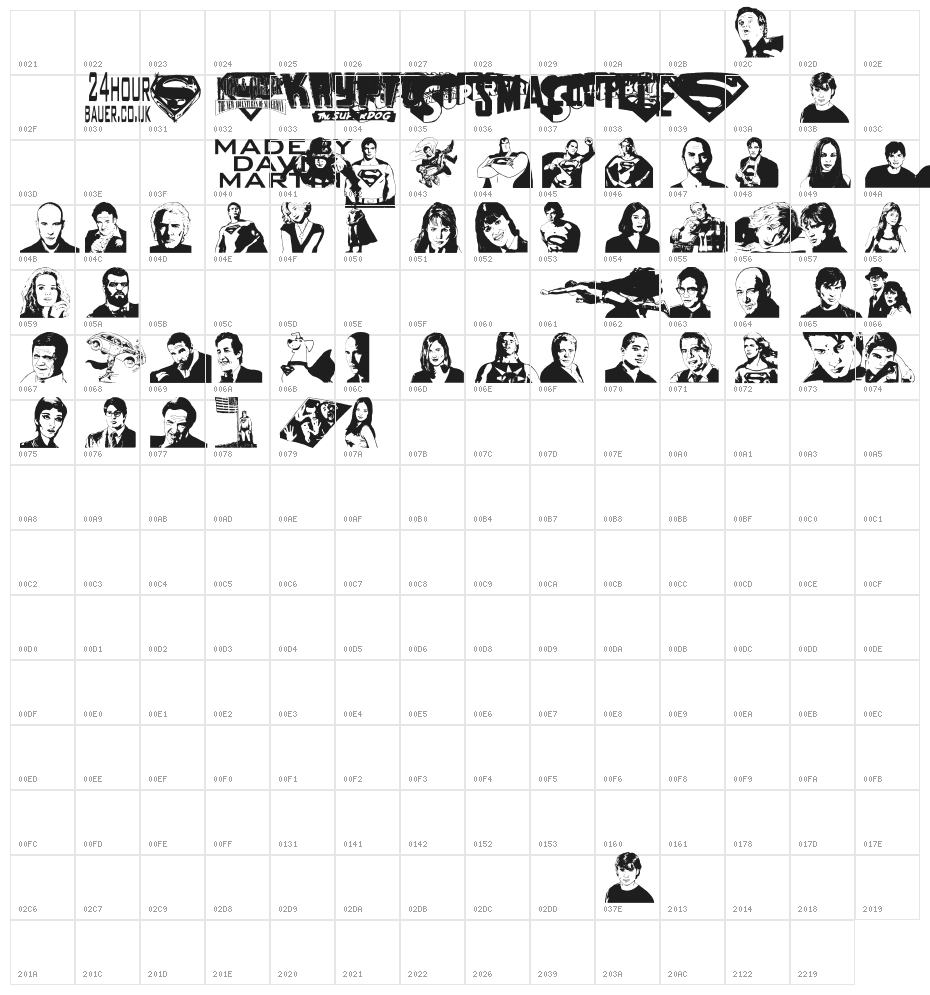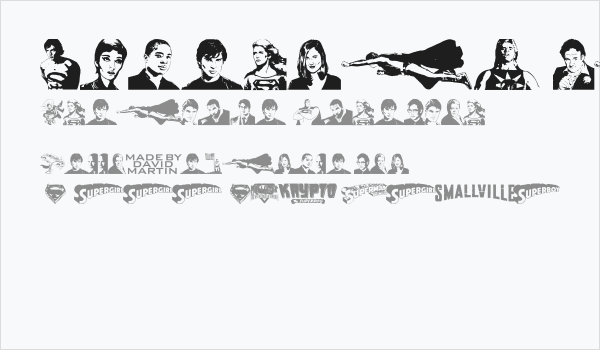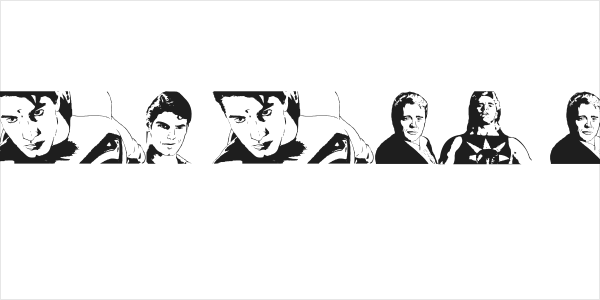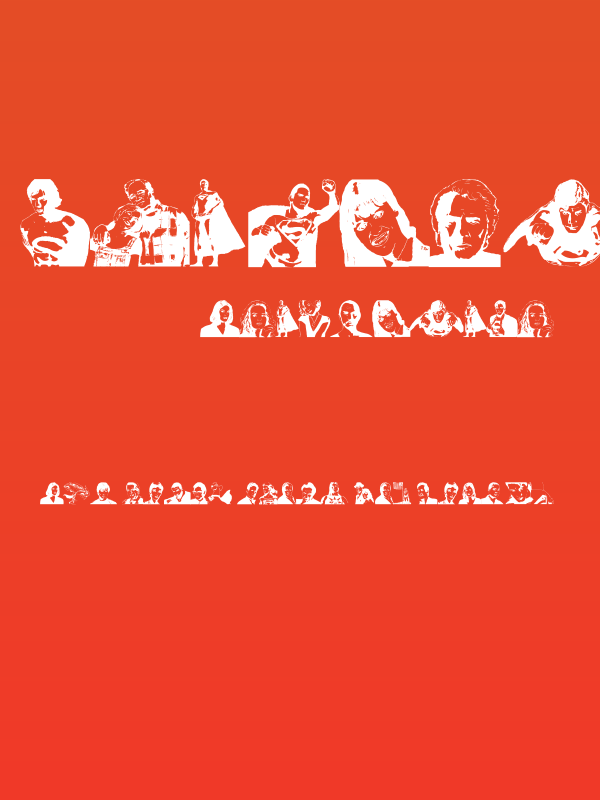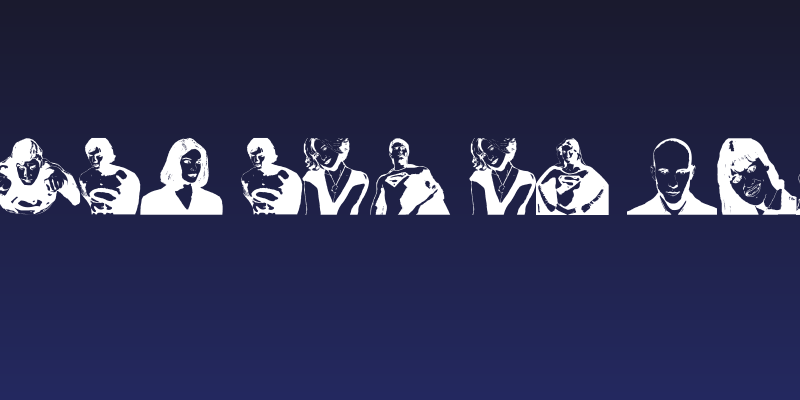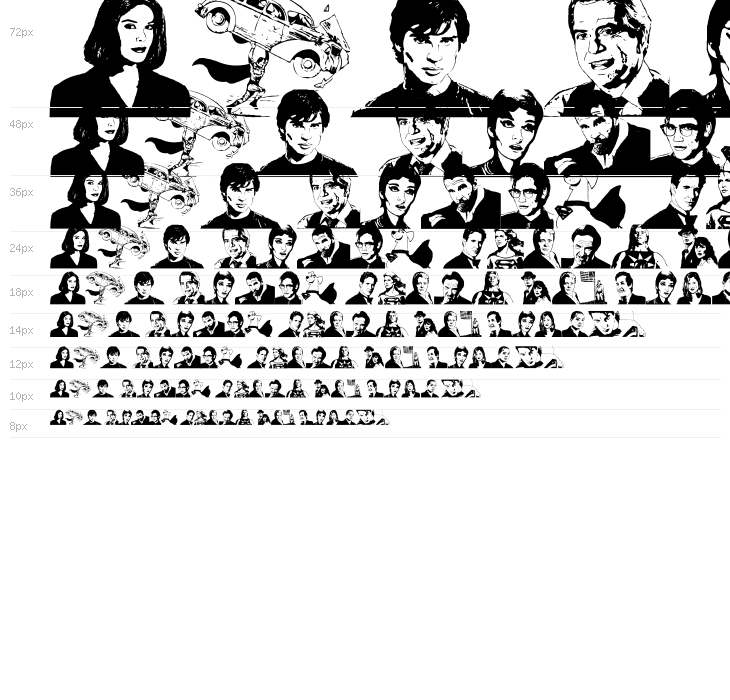
Superman Last son of Krypton Super Font
Superman Last son of Krypton Super Description
This is a decorative display font composed of black-and-white illustrations of characters, logos, and symbols related to the Superman franchise, rather than traditional letterforms. Each glyph is represented by a unique image, making it highly stylized and thematic.
| Overall Style | Decorative, Thematic, Comic-inspired |
| Use Case | Logos, Posters, Themed Headlines, Event Graphics |
| Proposed Projects | Fan art, themed posters, comic conventions, event flyers, novelty merchandise. |